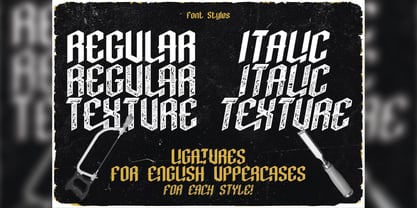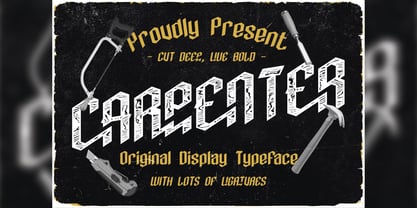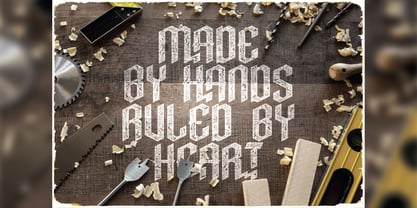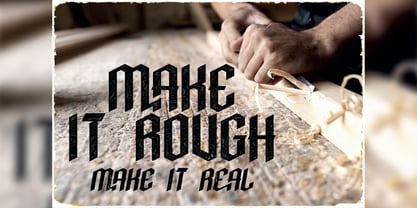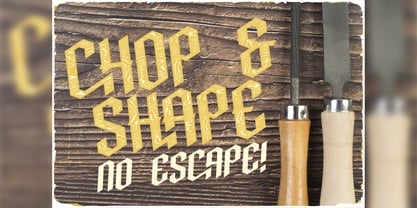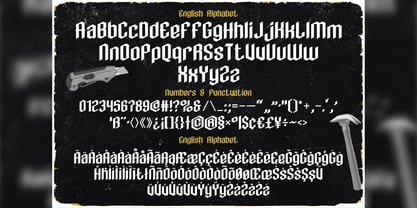
Carpenter
by Vozzy
The Carpenter Font Family was designed by Oleg Voznyy and published by Vozzy. Carpenter contains 4 styles and family package options. More about this family
Introducing "Carpenter," a distinctive font designed for headlines, accent inscriptions, and capturing attention. This versatile typeface features a wide array of additional characters, punctuation marks, and multilingual options, along with an extensive selection of standard ligatures—ensure your software supports this OpenType feature. Perfect for branding, web design, and editorial projects, "Carpenter" will enhance your stunning designs with its unique style and functionality.